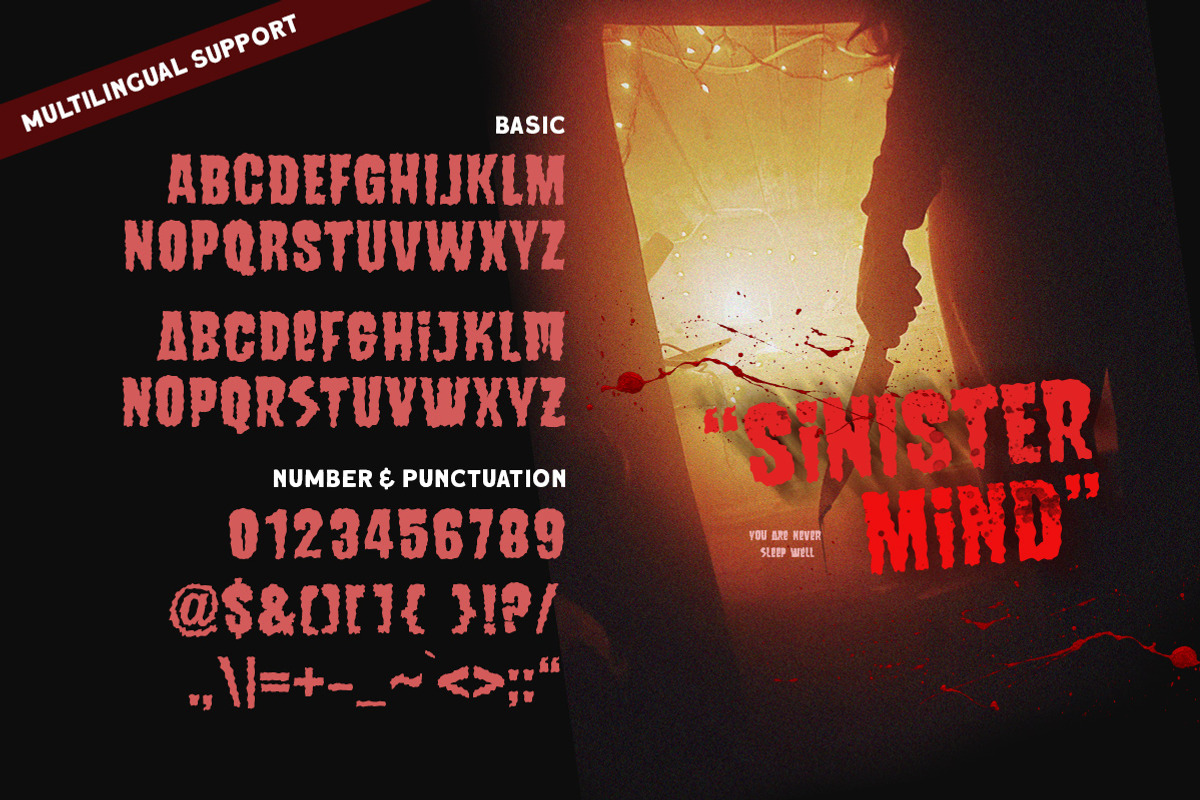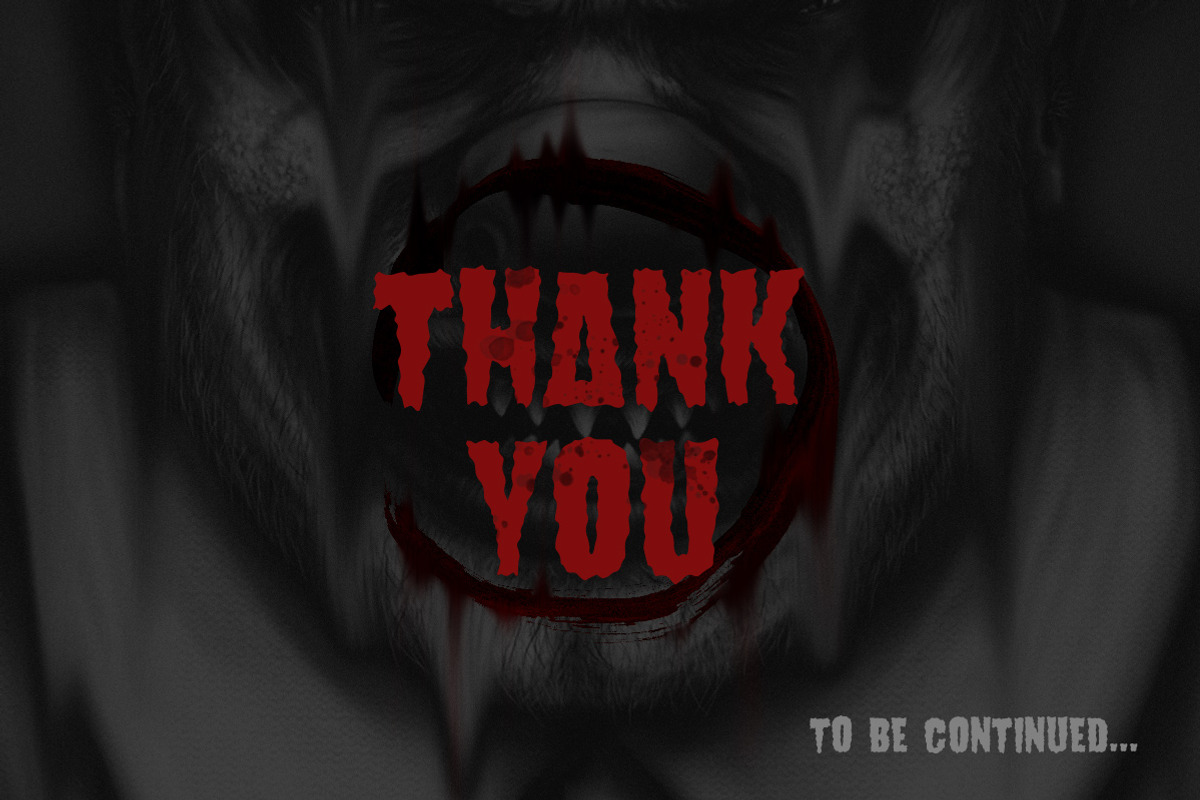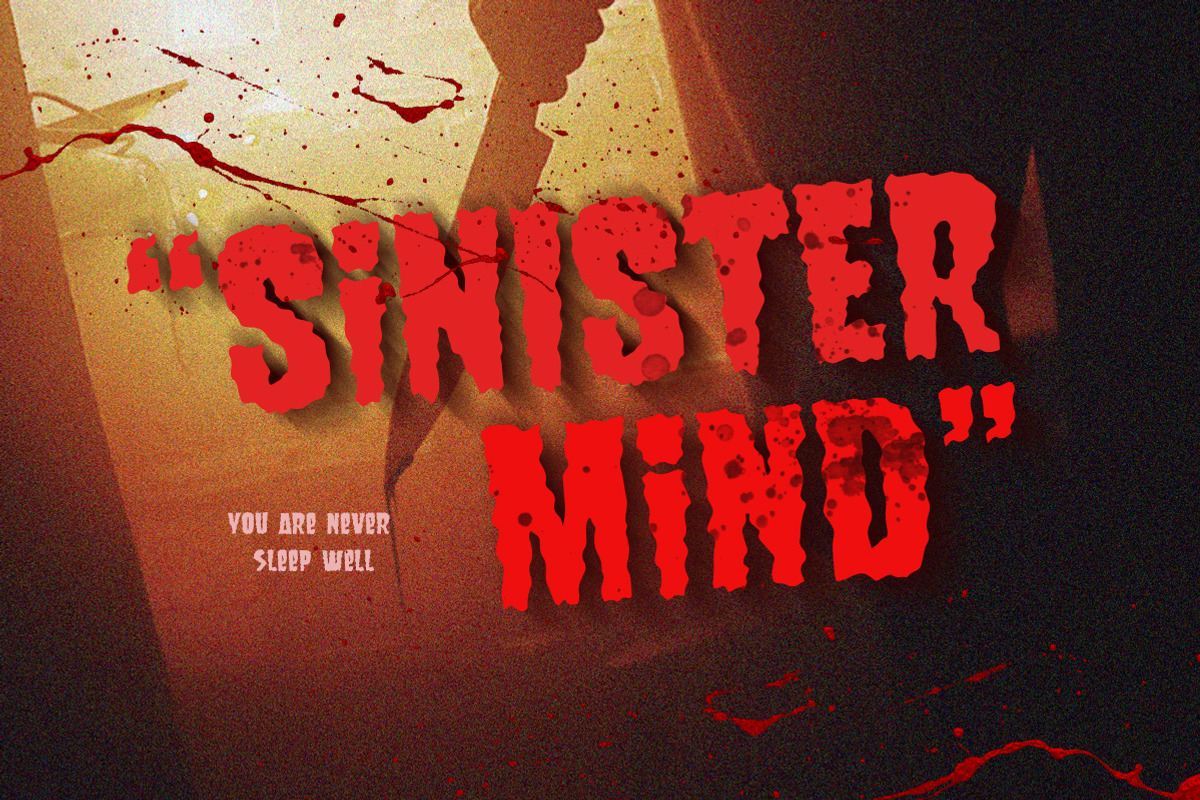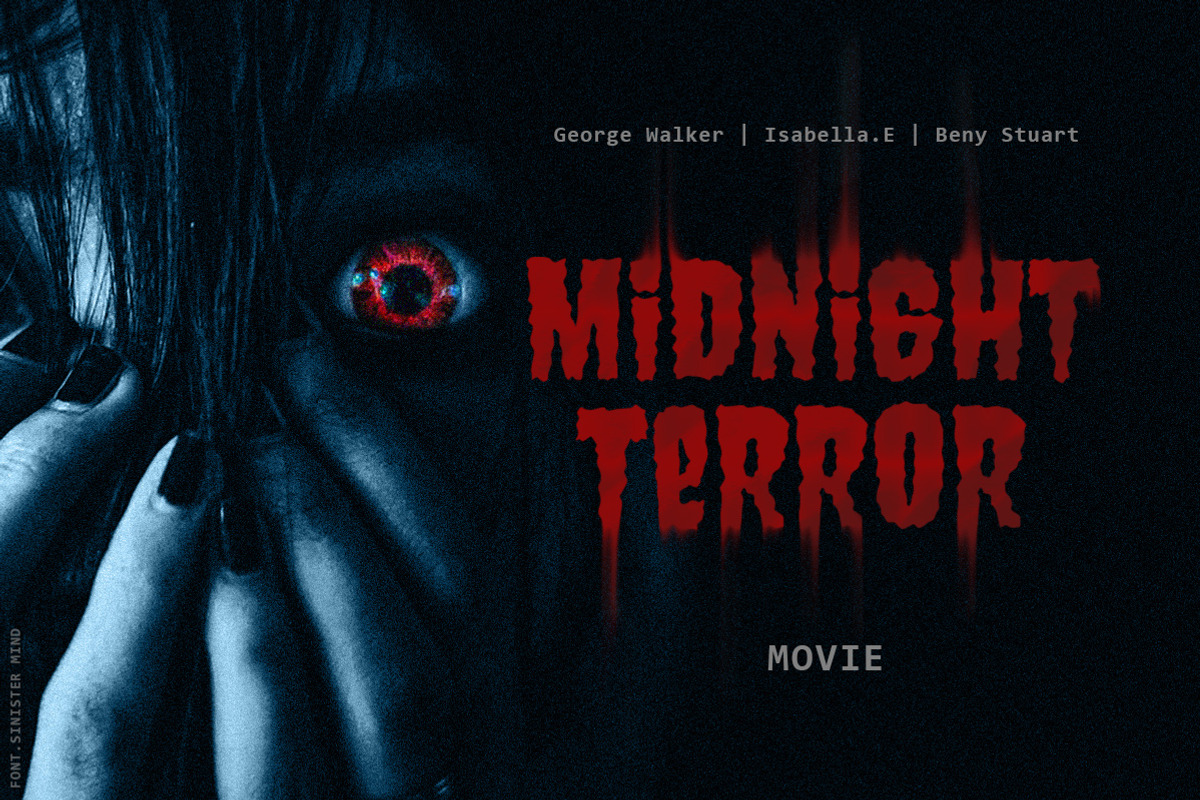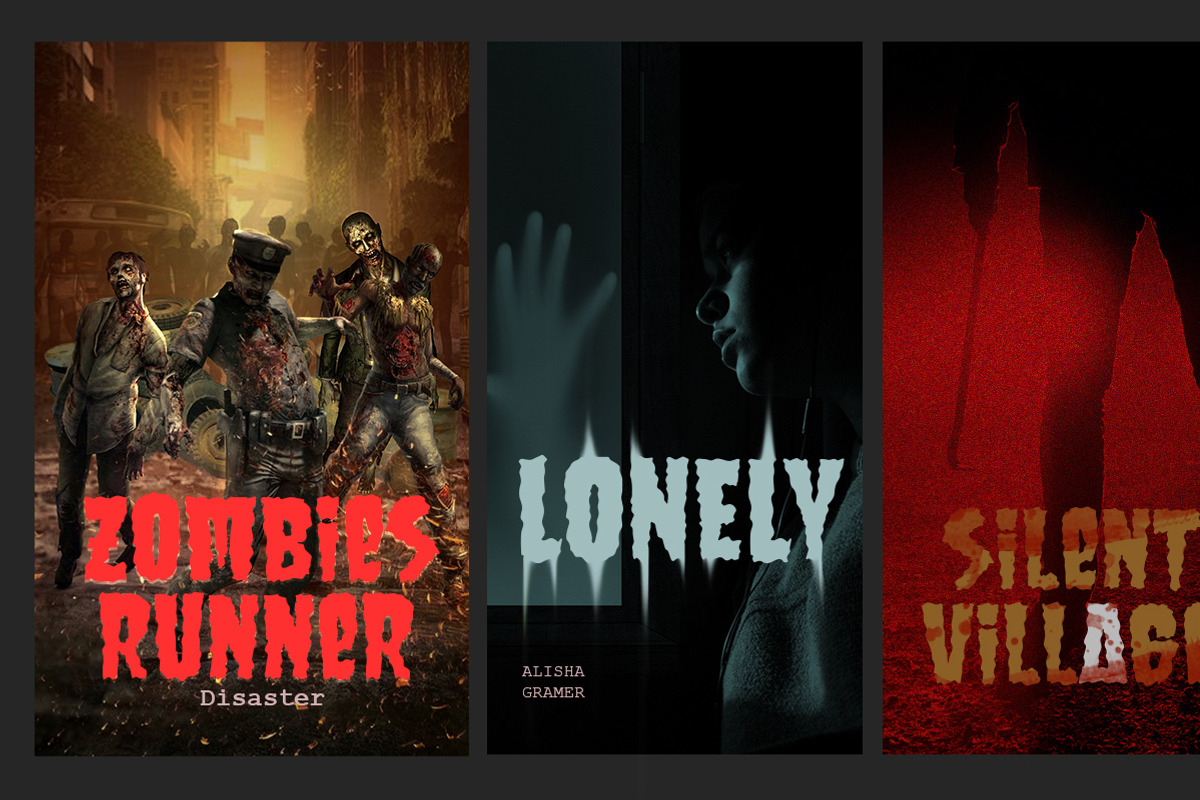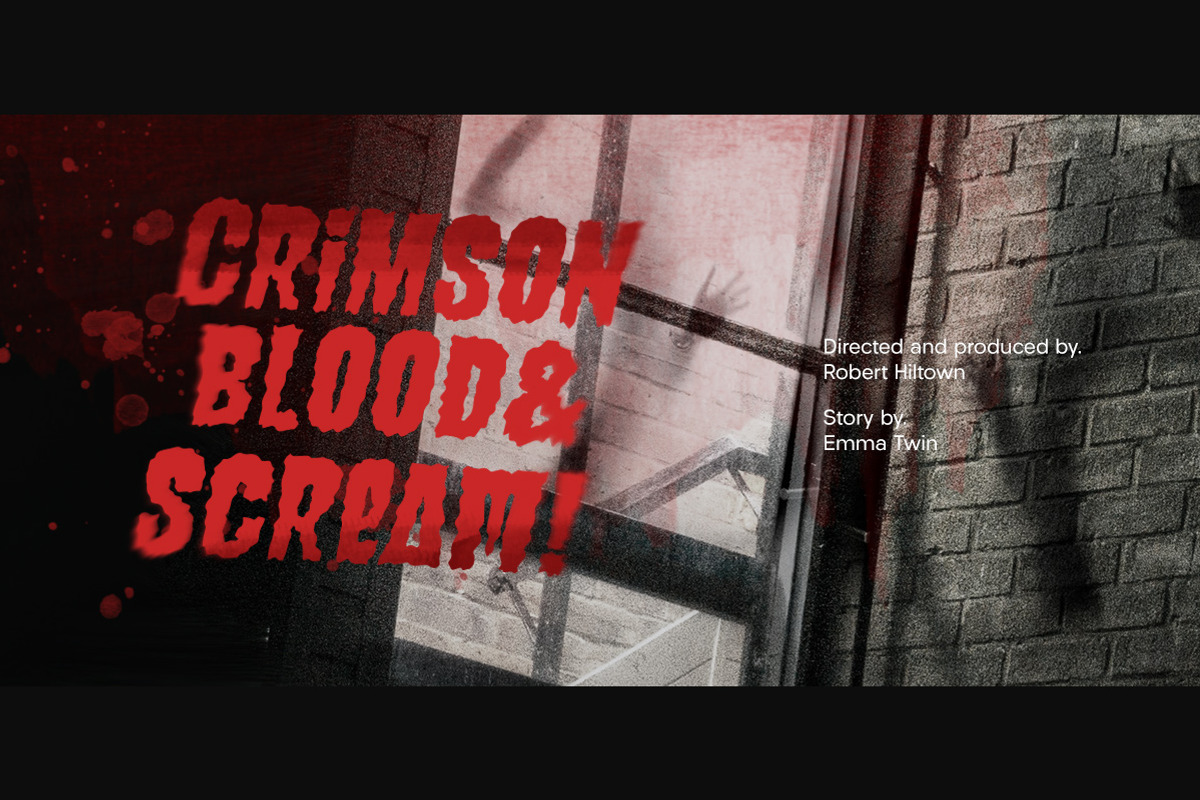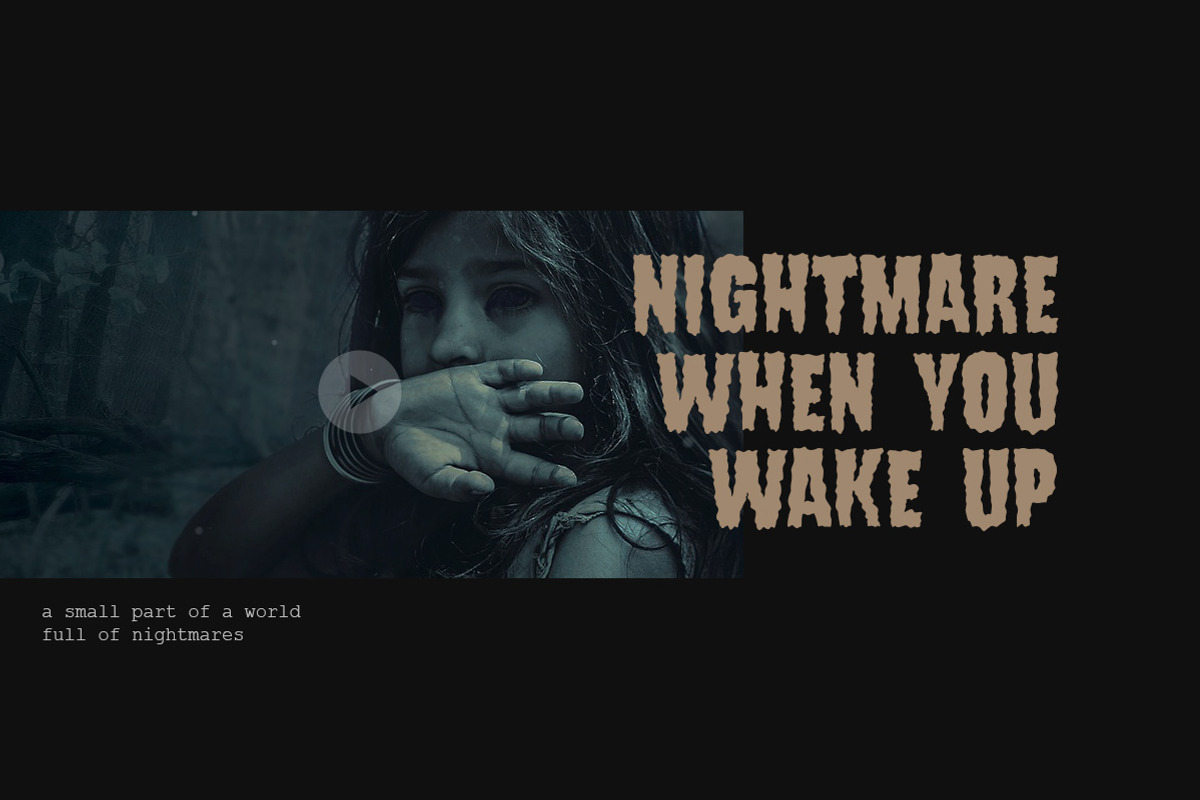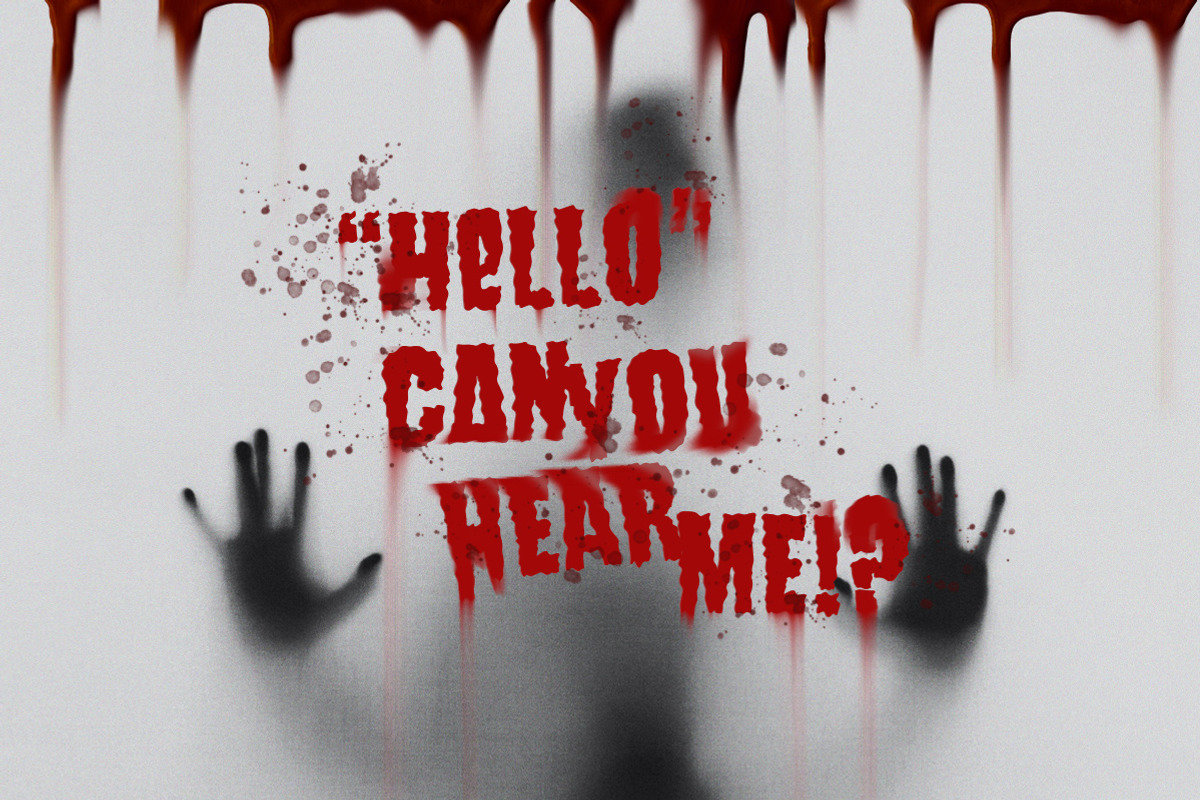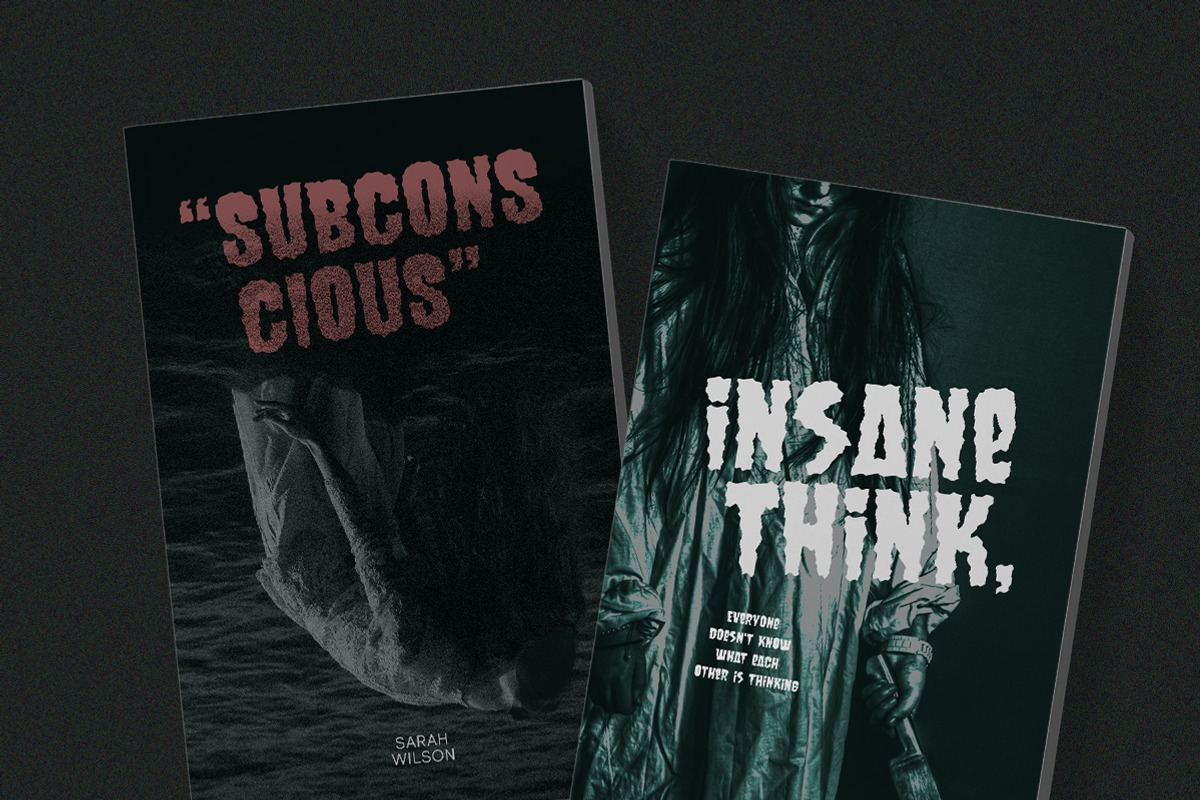
Sinister Mind - Horror Creepy Font
Sinister Mind is an eye-catching typeface with a great looks in horror / creepy font. This type of font perfectly made to be applied especially in movies which is need a standout font, and the other simple forms such as invitations, labels, logos, magazines, books, greeting, packaging, novels, labels or any type of advertising purpose.
- alternates